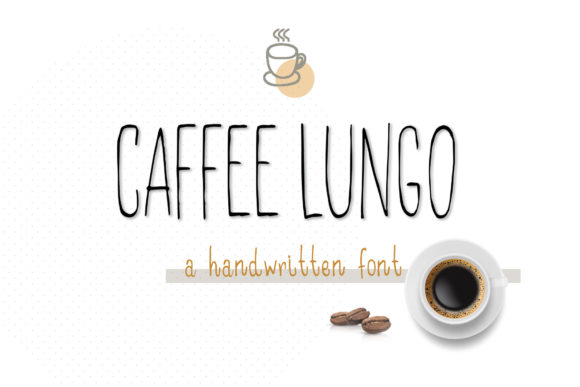
The Perfect Font for Chalkboard Quotes: A Deep Dive into Caffe Lungo Font
I’ll never forget the time I was working on a project to create a set of chalkboard quotes for a client’s coffee shop. I had spent hours brainstorming ideas and crafting the perfect phrases, but when it came time to choose a font, I was stuck. I wanted something that would add a personal and realistic feel to the designs, but everything I tried looked too perfect, too polished. That’s when I stumbled upon Caffe Lungo Font, and it was love at first sight! 💕
A Personal and Realistic Touch: My Honest Review of Caffe Lungo Font
Caffe Lungo Font has quickly become one of my go-to fonts for any project that requires a personal touch. Here’s what I love about it:
- ✨ Authentic look: Caffe Lungo Font has a beautifully imperfect, handwritten feel that’s perfect for creating chalkboard quotes or teaching materials.
- ✅ Ease of use: The font is easy to read and works well in a variety of sizes, making it versatile for different design applications.
- 💕 Cute and charming: The font has a playful, whimsical feel that’s sure to add a touch of personality to your designs.
- 🤔 Limited character set: While Caffe Lungo Font has a wide range of characters, it’s not a full-featured font with extensive language support.
- ⚠️ Not suitable for body text: Due to its handwritten nature, Caffe Lungo Font is best used for headings or short paragraphs, rather than large blocks of body text.
Getting Started with Caffe Lungo Font: A Practical Guide
The Story Behind Caffe Lungo Font
Caffe Lungo Font was designed with the intention of creating a font that would evoke the feeling of a chalkboard quote. The designer wanted to create a font that was both cute and simple, yet authentic and realistic. The result is a font that’s perfect for adding a personal touch to your designs.
| Font Name | Caffee Lungo Font |
| Author | Irina Matiash |
| What is Caffe Lungo Font best used for? | Caffe Lungo Font is best used for chalkboard quotes, teaching materials, and other designs that require a personal and realistic feel. |
| Does Caffe Lungo Font have a wide range of characters? | While Caffe Lungo Font has a wide range of characters, it’s not a full-featured font with extensive language support. |